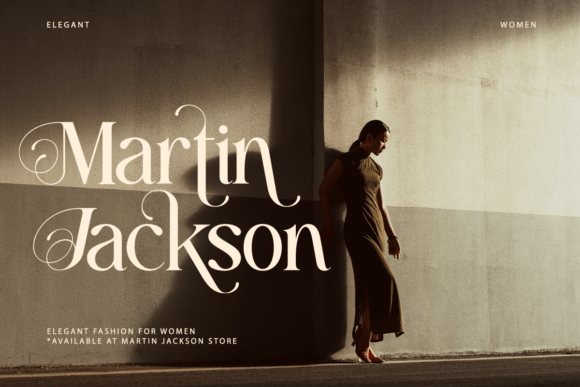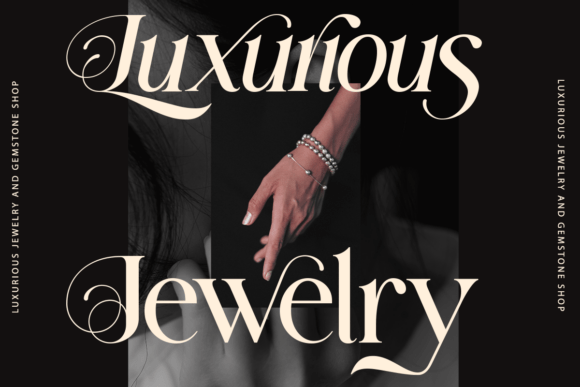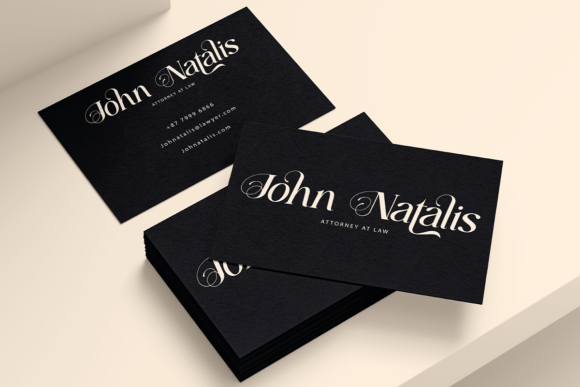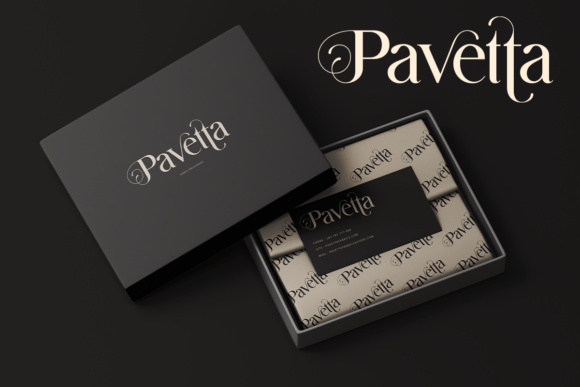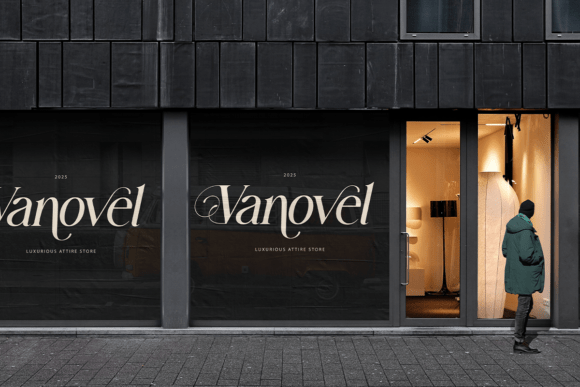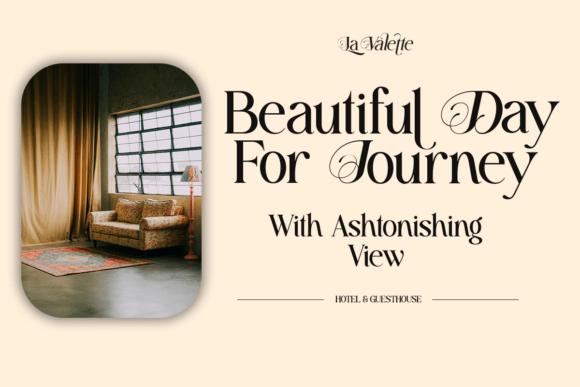
The Elusive Perfect Font: My Journey with Fastelar
I still remember the countless hours I spent searching for the perfect font for a luxury branding project. My client wanted something that exuded elegance, sophistication, and a touch of high-end flair. I scoured the internet, tried out dozens of fonts, but nothing seemed to fit the bill. That was until I stumbled upon Fastelar, a luxurious branding font that has since become my go-to for premium projects.
What is Fastelar?
Fastelar is a stunning font designed to captivate, with high-contrast strokes and graceful curves that bring an air of luxury to any project. Its unique blend of strength, balance, and readability makes it perfect for a wide range of applications, from luxury branding and logos to editorial layouts and engaging websites.
What I Love About Fastelar ✨
- ✅ Elegant and sophisticated design that’s perfect for luxury brands
- ✅ High-contrast strokes and graceful curves that add visual interest
- ✅ Carefully shaped characters for strength, balance, and readability
- ✅ True italics that add fluidity and style to your text
- ⚠️ Limited availability of certain characters or glyphs (but this can be overcome with OpenType features)
- ⚠️ May not be suitable for body text or long-form content due to its luxurious and attention-grabbing nature
The Story Behind Fastelar
Fastelar was designed by a team of typographers who wanted to create a font that would capture the essence of luxury and sophistication. Inspired by classic serif fonts and modern design trends, Fastelar is the result of careful craftsmanship and attention to detail. The design team spent countless hours refining the font’s curves, strokes, and characters to create a truly unique and elegant typeface.
Q: What is Fastelar designed for?
A: Fastelar is designed for luxury branding, editorial excellence, web and digital applications, and premium packaging.
Q: Is Fastelar suitable for body text?
A: While Fastelar is a beautiful font, it may not be the best choice for body text due to its luxurious and attention-grabbing nature. It’s better suited for headlines, titles, and short-form content.
Q: Does Fastelar support OpenType features?
A: Yes, Fastelar supports OpenType features like glyphs, stylistic alternates, and character variations, which can be accessed through the font settings in your design software.